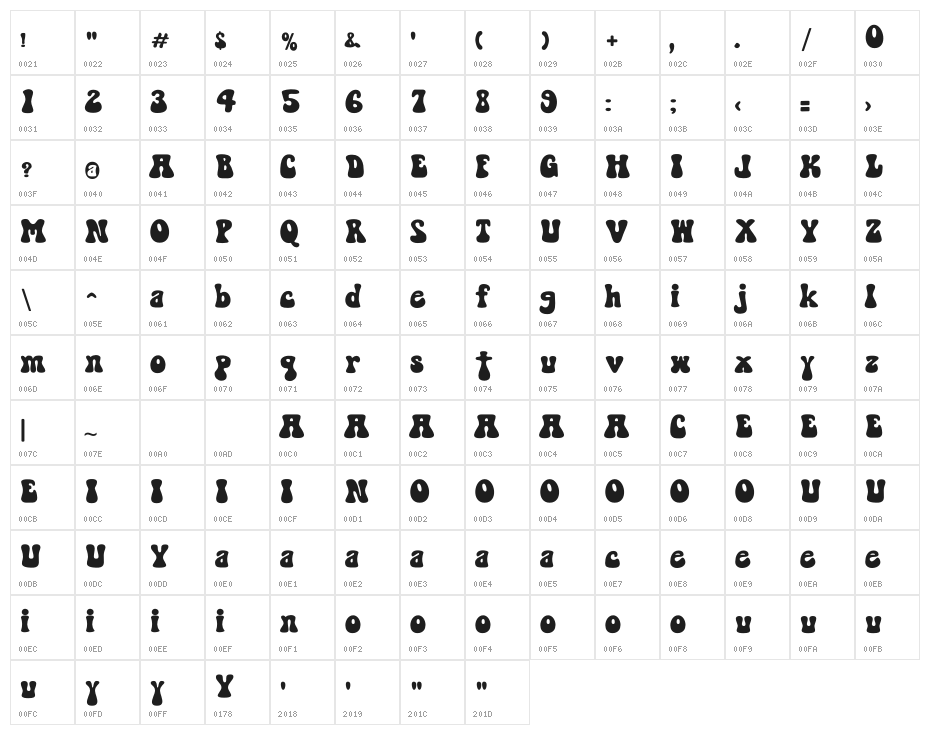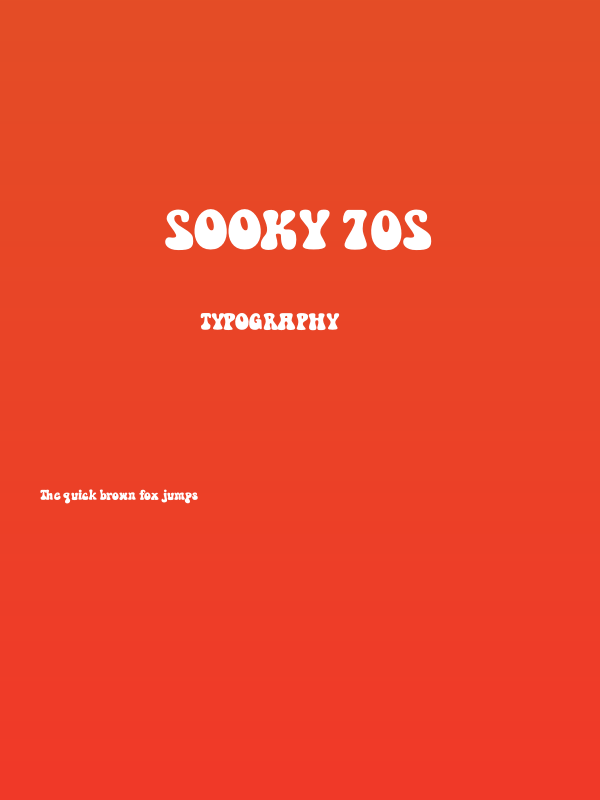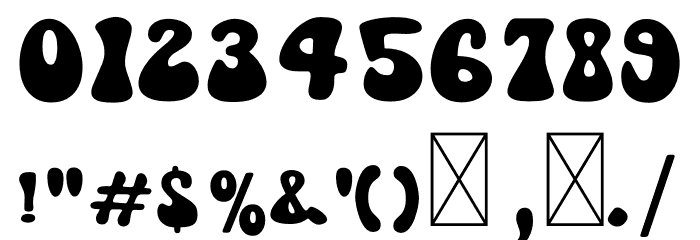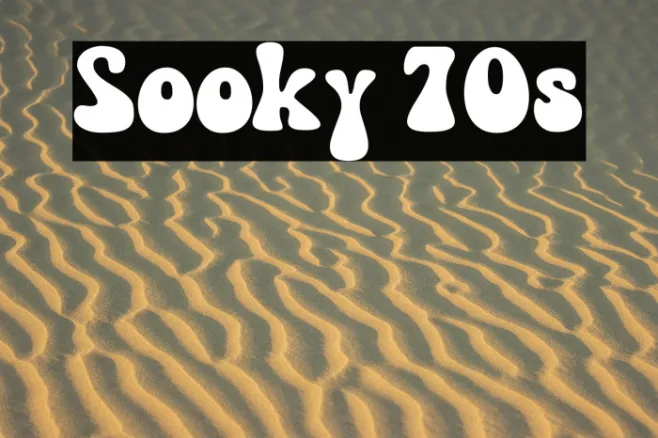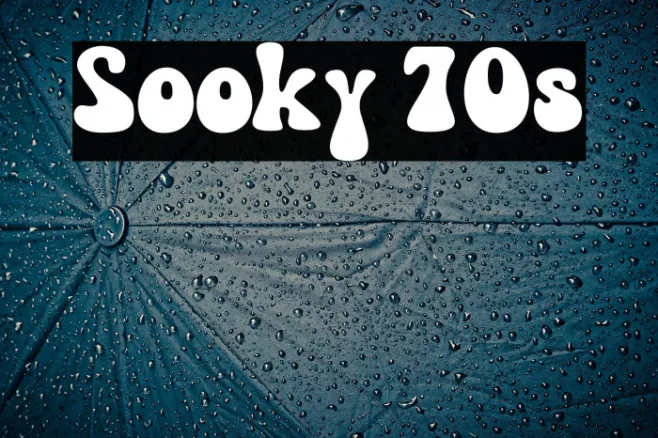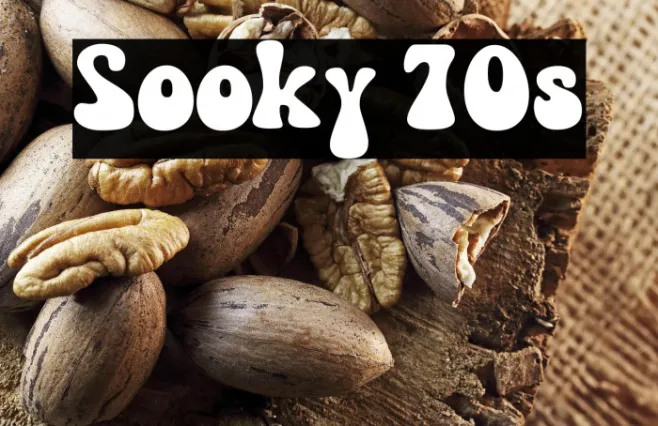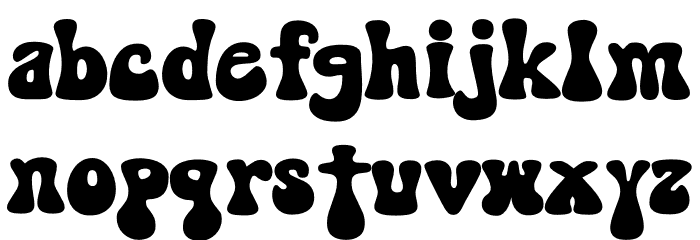
Sooky 70s Font
This font exudes a playful and retro vibe, reminiscent of the 1970s. The characters are bold and rounded, with a bubbly appearance that adds a sense of fun and nostalgia. The letters have a consistent thickness, contributing to a cohesive and harmonious look. The numbers and special characters maintain the same playful style, making the font versatile for various uses. Its unique design makes it stand out, perfect for projects that aim to capture a vintage or whimsical aesthetic.
| Overall Style | Vintage |
| Proposed Projects | Ideal for retro-themed posters, playful branding, children's books, or any project seeking a nostalgic touch. |